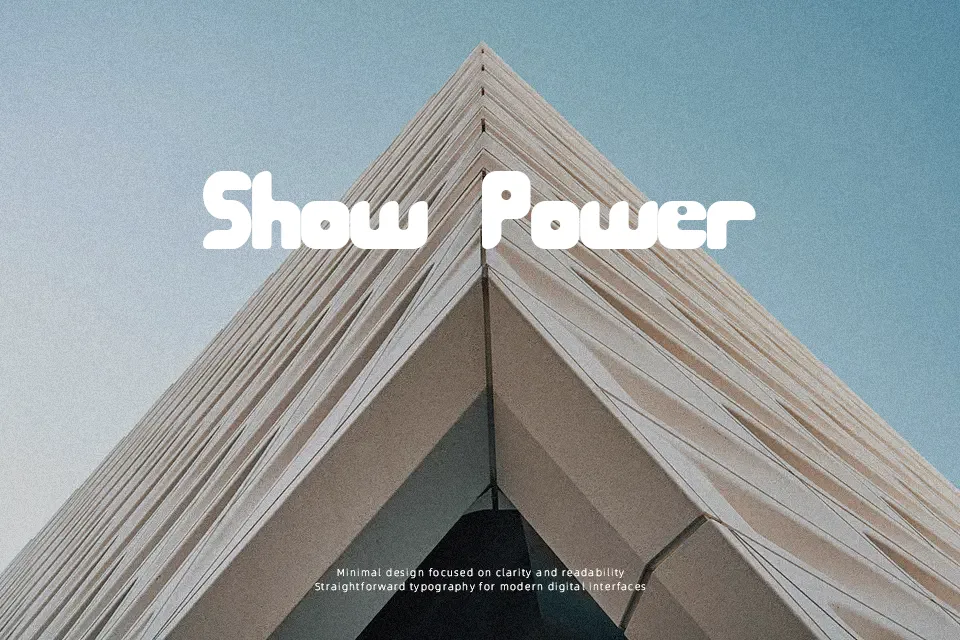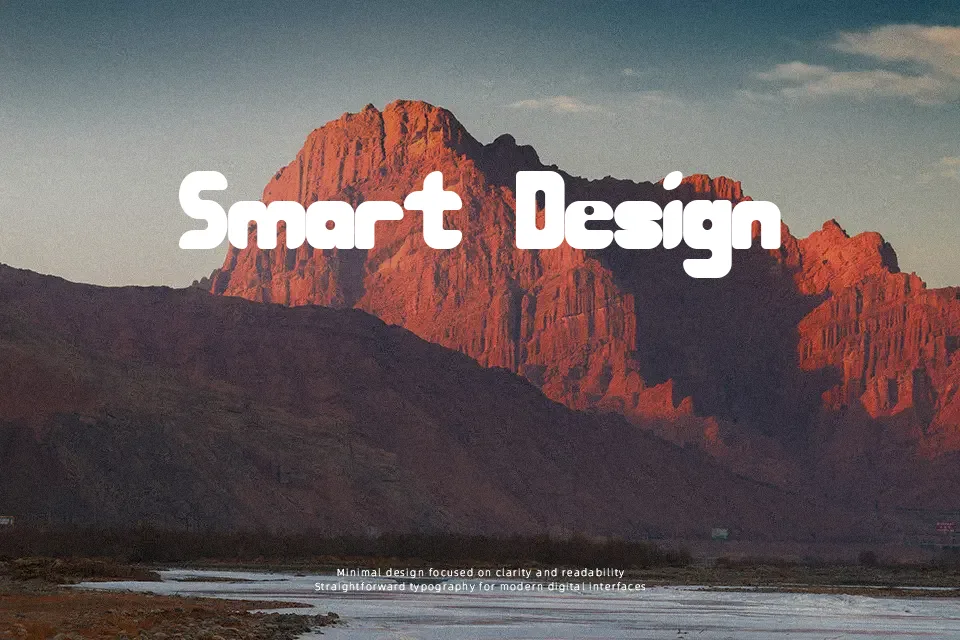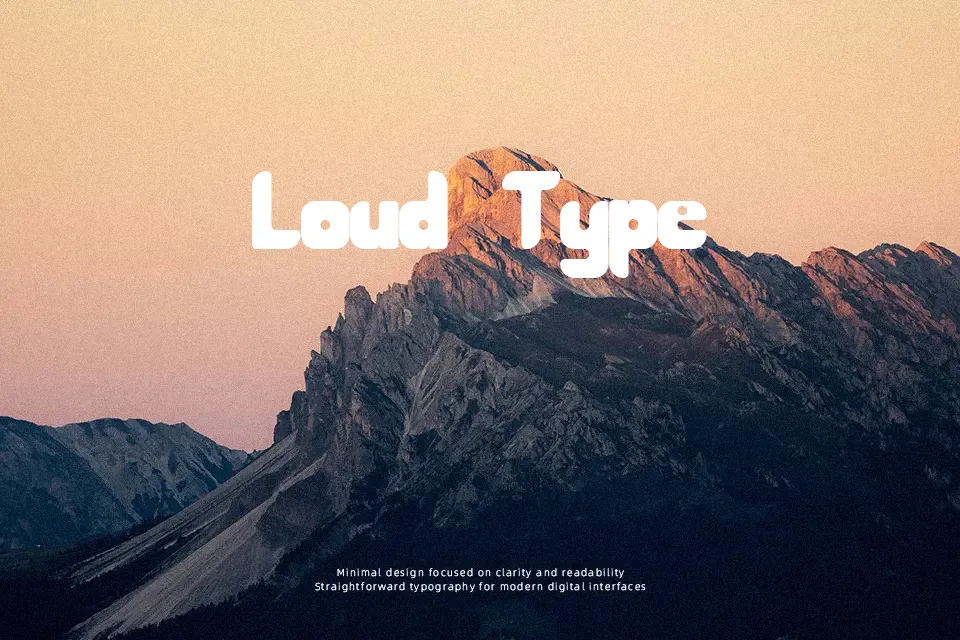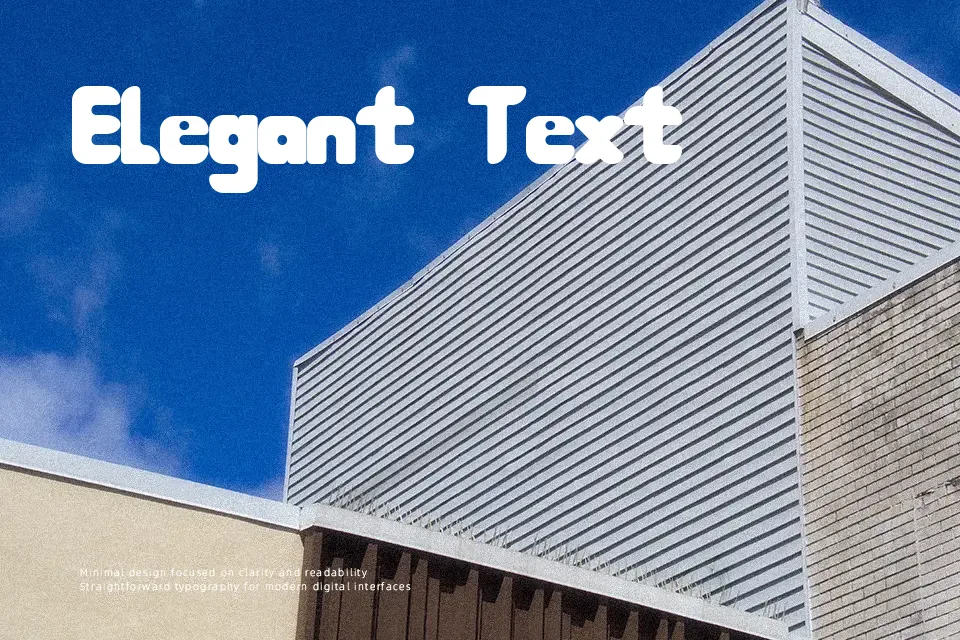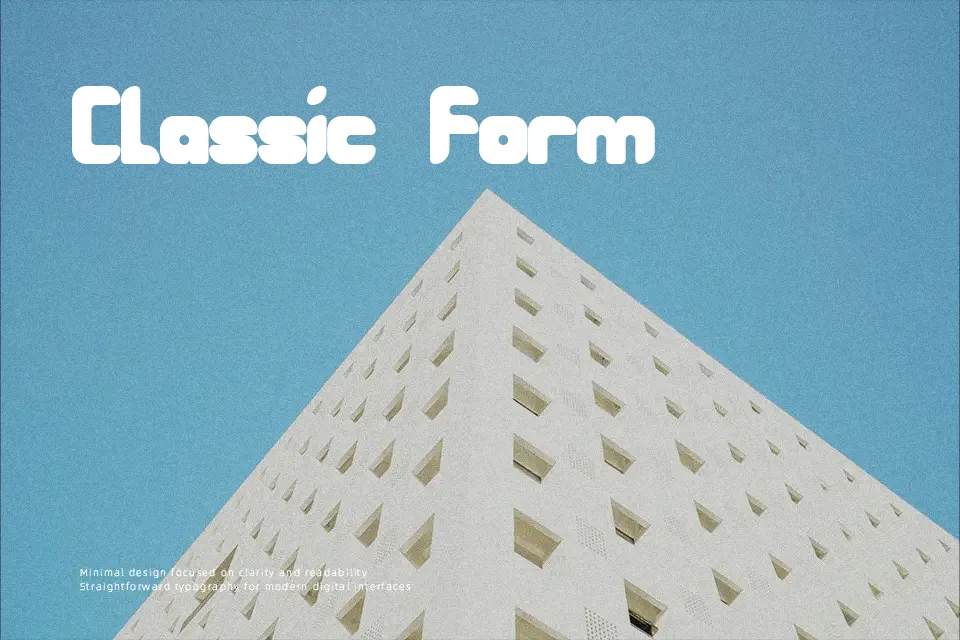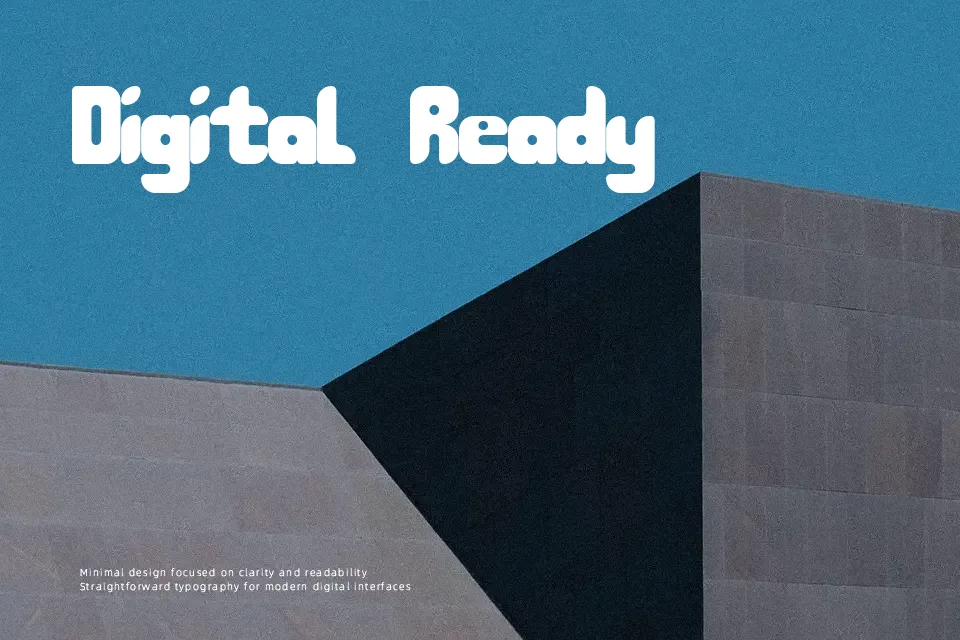
208 Font
Designed by Quan Vu
The letterforms in 208 carry a confident retro groove — thick strokes with rounded, bouncy terminals that give each character a sense of motion. Spacing is loose and expressive, leaning more into visual energy than typographic precision. This makes it a reasonable pick for music-themed headers, vintage-inspired packaging labels, or poster titles where a 70s aesthetic is deliberately invoked. That said, the quirky stroke irregularities that give it character also make it a poor fit for anything requiring clear readability at small sizes or in dense text settings. Think of it as a decorative accent font — strong in a single headline, strained when overused.
Best For:- Music event and concert poster headlines
– Retro-themed streetwear or apparel graphics
– Social media visual headers with a groovy or vintage feel
– Indie brand packaging that leans into 70s nostalgia
Not Ideal For:- Body text or long-form reading
– Corporate or professional branding materials
– Small-size UI labels or navigation text
– Any context requiring clean typographic neutrality
Perfect for branding, music, and packaging, with a bold and decorative style.